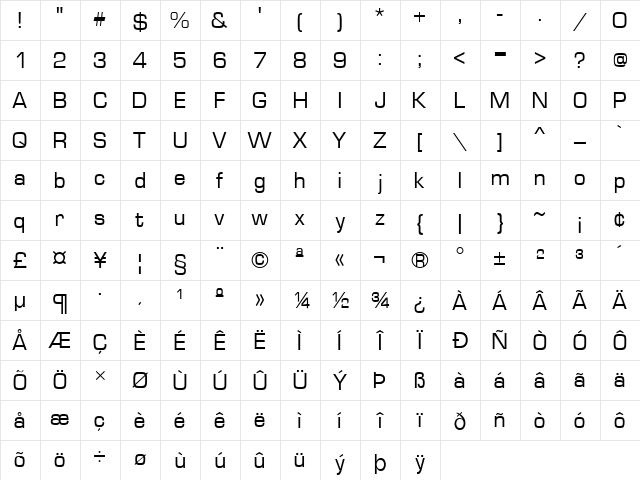
Waukegan LDO Regular Font Preview
Waukegan LDO Regular
Waukegan LDO Regular Font Details
| Foundry | LDO Fonts |
| Designer | Luke Owens |
Design Context for Waukegan LDO Typeface
Waukegan LDO is a composed and adaptable typeface that performs quietly and consistently across a wide range of design contexts.